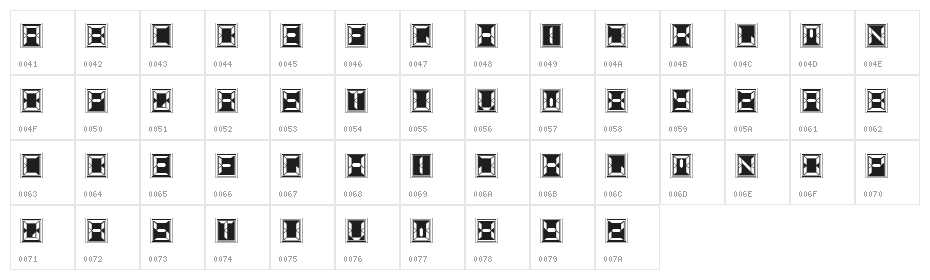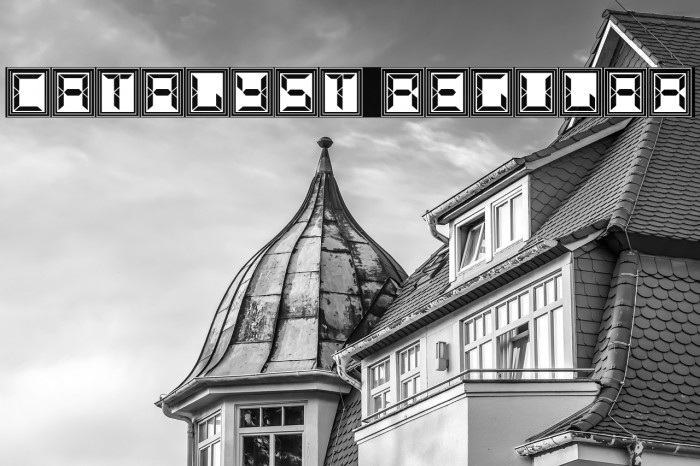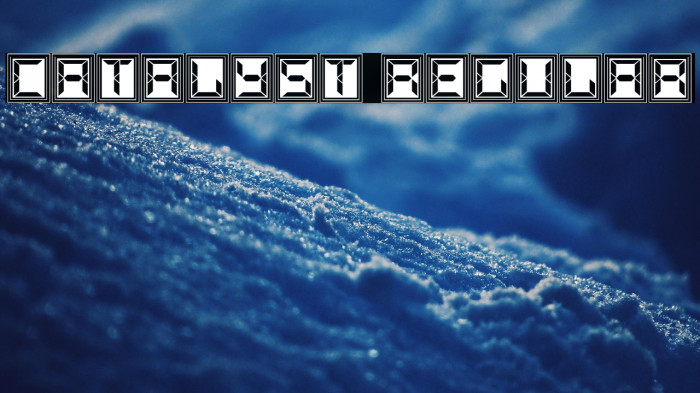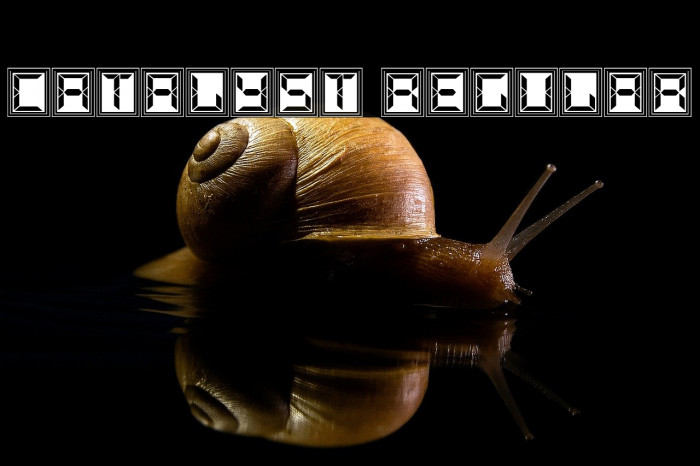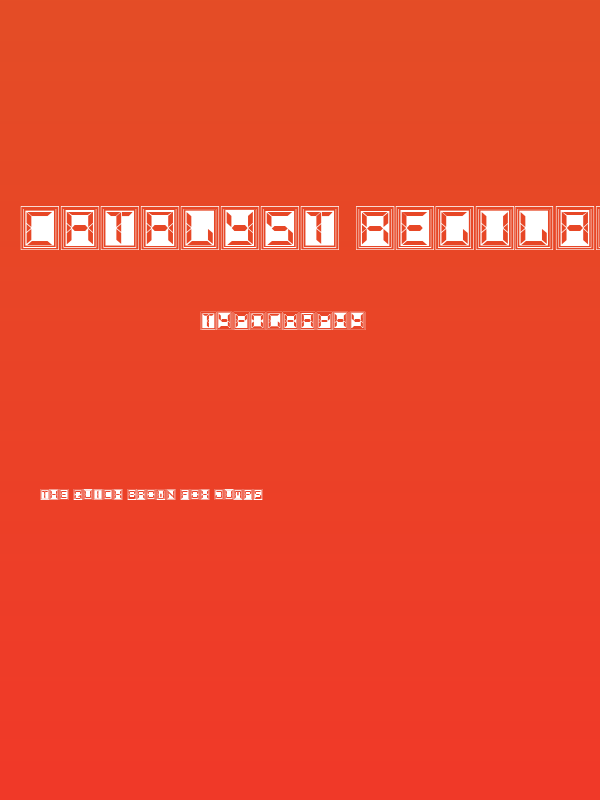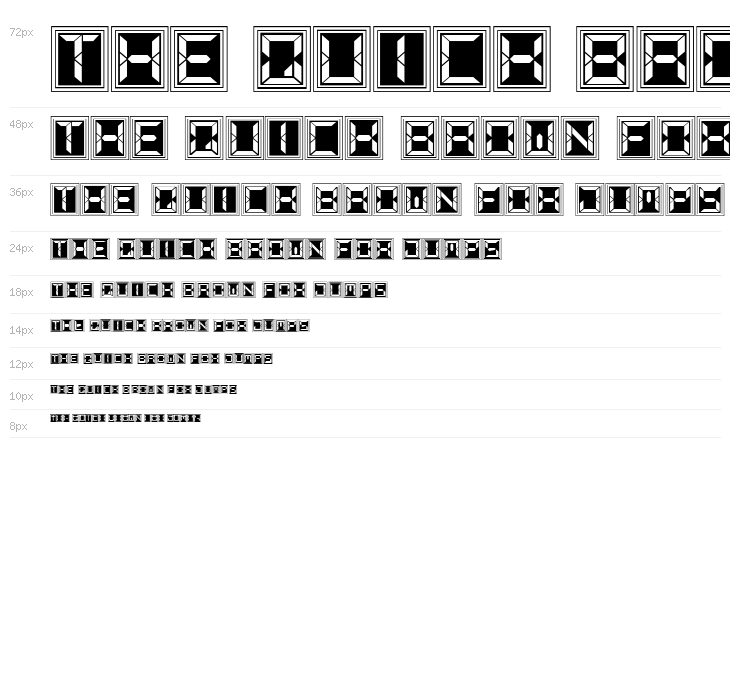
Catalyst Regular Font
| Область применения | Logos, Headlines, Digital displays |
| Рекомендуемые проекты | Ideal for digital interfaces, tech-themed posters, futuristic branding, and electronic device displays. |